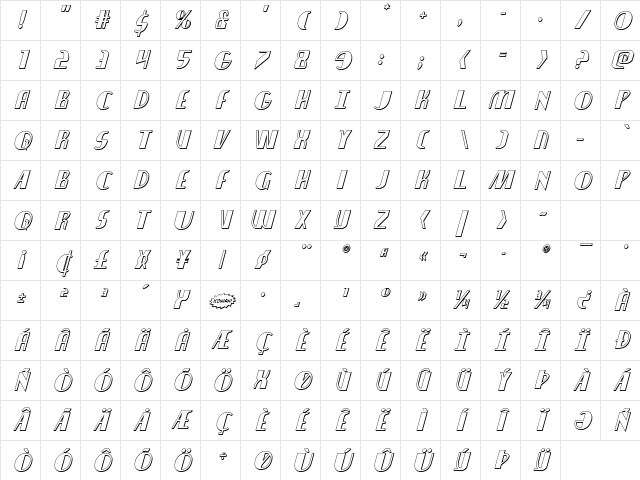
Nathan Brazil 3D Italic Italic
Design Context for Nathan Brazil 3D Italic
Nathan Brazil 3D Italic is a composed and adaptable typeface that performs quietly and consistently across a wide range of design contexts. The slanted form adds forward momentum and visual energy.
Pro Tip: Use Nathan Brazil 3D Italic for emphasis, pull quotes, and subheadings where its slanted energy can add rhythm to the layout.